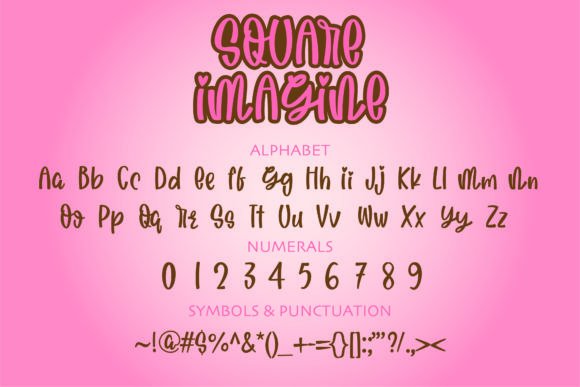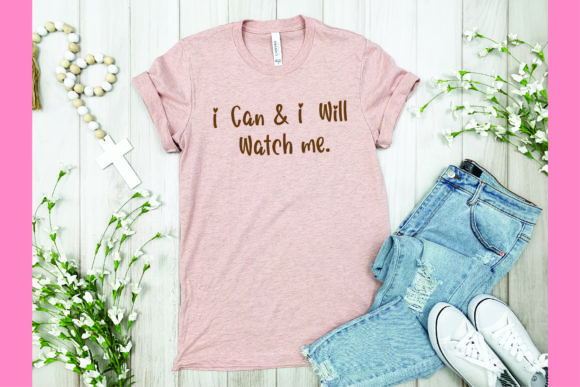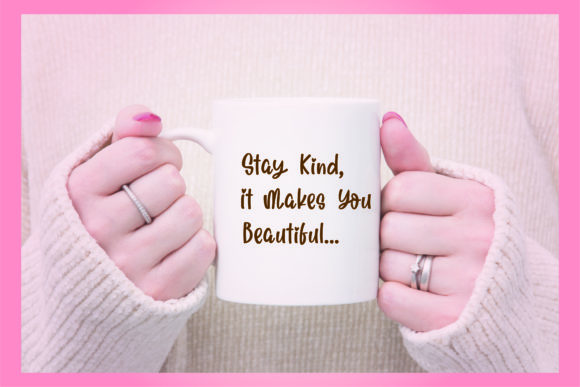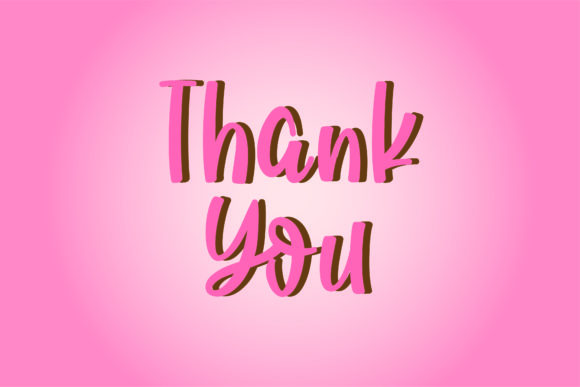
Square Imagine Font
About Square Imagine Font
Square Imagine is a quirky and sweet handwritten font. No matter the topic, this font will be an incredible asset to your fonts’ library, as it has the potential to elevate any creation.